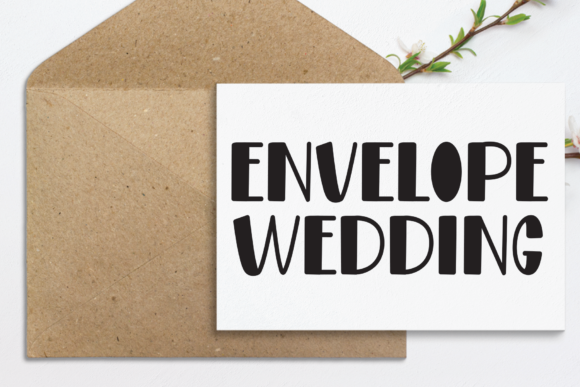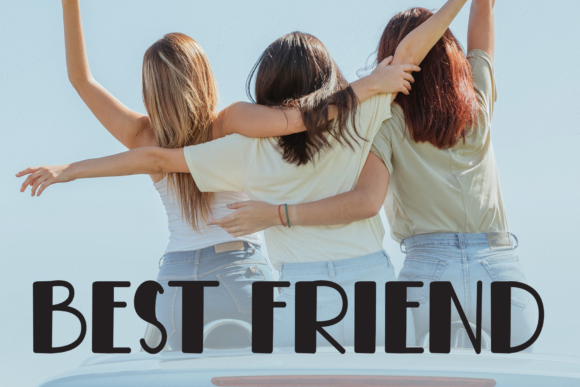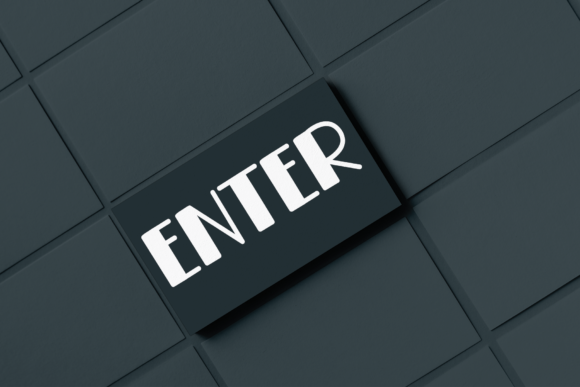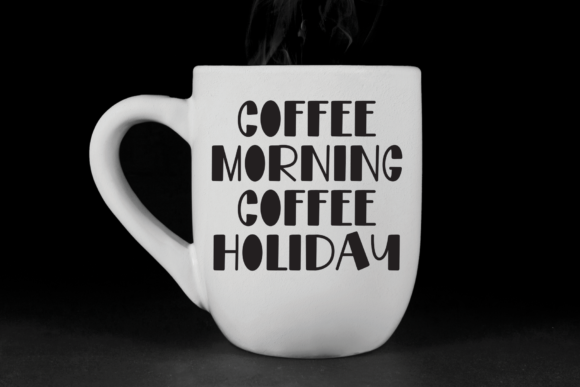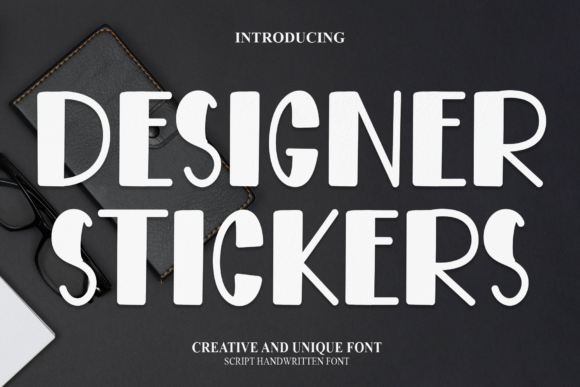
Introducing Designer Stickers Font: The Ultimate Playful Display Font
Are you a designer or crafter looking for a font that can add a fun and cool touch to your projects? Look no further than Designer Stickers Font! This thick lettered and playful display font is perfect for any design idea, and its soft texture makes it a versatile choice for a wide range of applications.
What is Designer Stickers Font?
Designer Stickers Font is a unique and eye-catching font that is designed to make your designs stand out. Its thick letters and playful texture give it a fun and youthful feel that is perfect for projects that require a bit of personality. Whether you’re working on a branding project, a craft tutorial, or a social media graphic, Designer Stickers Font is sure to add a touch of whimsy and style.
Key Features of Designer Stickers Font
- Thick Lettered: Designer Stickers Font features thick, bold letters that are perfect for creating eye-catching designs.
- Playful Texture: The soft texture of this font gives it a playful and youthful feel that is perfect for a wide range of design applications.
- Versatile: Designer Stickers Font is a versatile font that can be used for a wide range of design projects, from branding and advertising to crafting and DIY tutorials.
- Easy to Read: Despite its playful texture, Designer Stickers Font is easy to read and understand, making it perfect for designs that require a clear and concise message.
How to Use Designer Stickers Font
Designer Stickers Font is easy to use and can be incorporated into a wide range of design projects. Here are a few ideas to get you started:
- Branding and Advertising: Use Designer Stickers Font to create eye-catching logos, advertisements, and marketing materials that are sure to grab attention.
- Crafting and DIY Tutorials: Add a touch of personality to your crafting and DIY tutorials with Designer Stickers Font. Use it to create fun and colorful titles, headings, and graphics.
- Social Media Graphics: Use Designer Stickers Font to create fun and engaging social media graphics that are sure to stand out in crowded feeds.
- Party Decorations: Create fun and colorful party decorations, such as banners, garlands, and signs, using Designer Stickers Font.
Benefits of Using Designer Stickers Font
There are many benefits to using Designer Stickers Font in your design projects. Here are a few:
- Adds Personality: Designer Stickers Font adds a touch of personality and whimsy to your designs, making them more engaging and fun.
- Versatile: This font is versatile and can be used for a wide range of design applications, from branding and advertising to crafting and DIY tutorials.
- Easy to Read: Designer Stickers Font is easy to read and understand, making it perfect for designs that require a clear and concise message.
- Time-Saving: With Designer Stickers Font, you can create professional-looking designs in no time. Its bold letters and playful texture make it easy to create eye-catching graphics without spending hours designing from scratch.
Tips and Tricks for Using Designer Stickers Font
Here are a few tips and tricks for using Designer Stickers Font:
- Experiment with Colors: Designer Stickers Font looks great in a wide range of colors. Experiment with different colors and combinations to find the one that works best for your design.
- Use it with Other Fonts: Designer Stickers Font pairs well with other fonts. Try using it with a sans-serif font for a fun and playful look.
- Play with Texture: The soft texture of Designer Stickers Font is one of its best features. Experiment with different textures and patterns to add depth and interest to your designs.
Designer Stickers Font is a unique and versatile font that is perfect for designers and crafters looking to add a fun and cool touch to their projects. Its thick letters and playful texture make it a great choice for a wide range of design applications, from branding and advertising to crafting and DIY tutorials. With its ease of use and versatility, Designer Stickers Font is sure to become a favorite in your design toolbox.